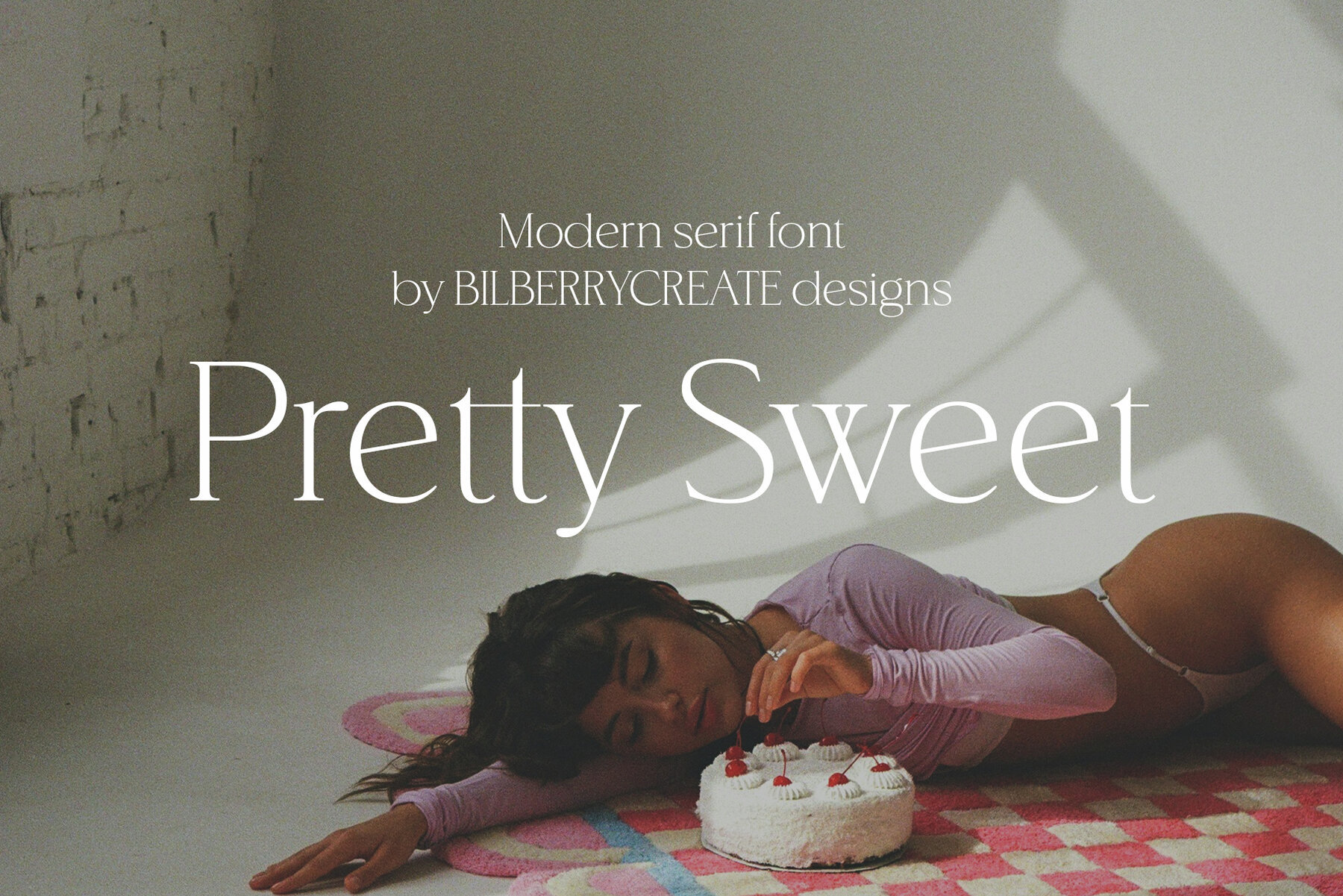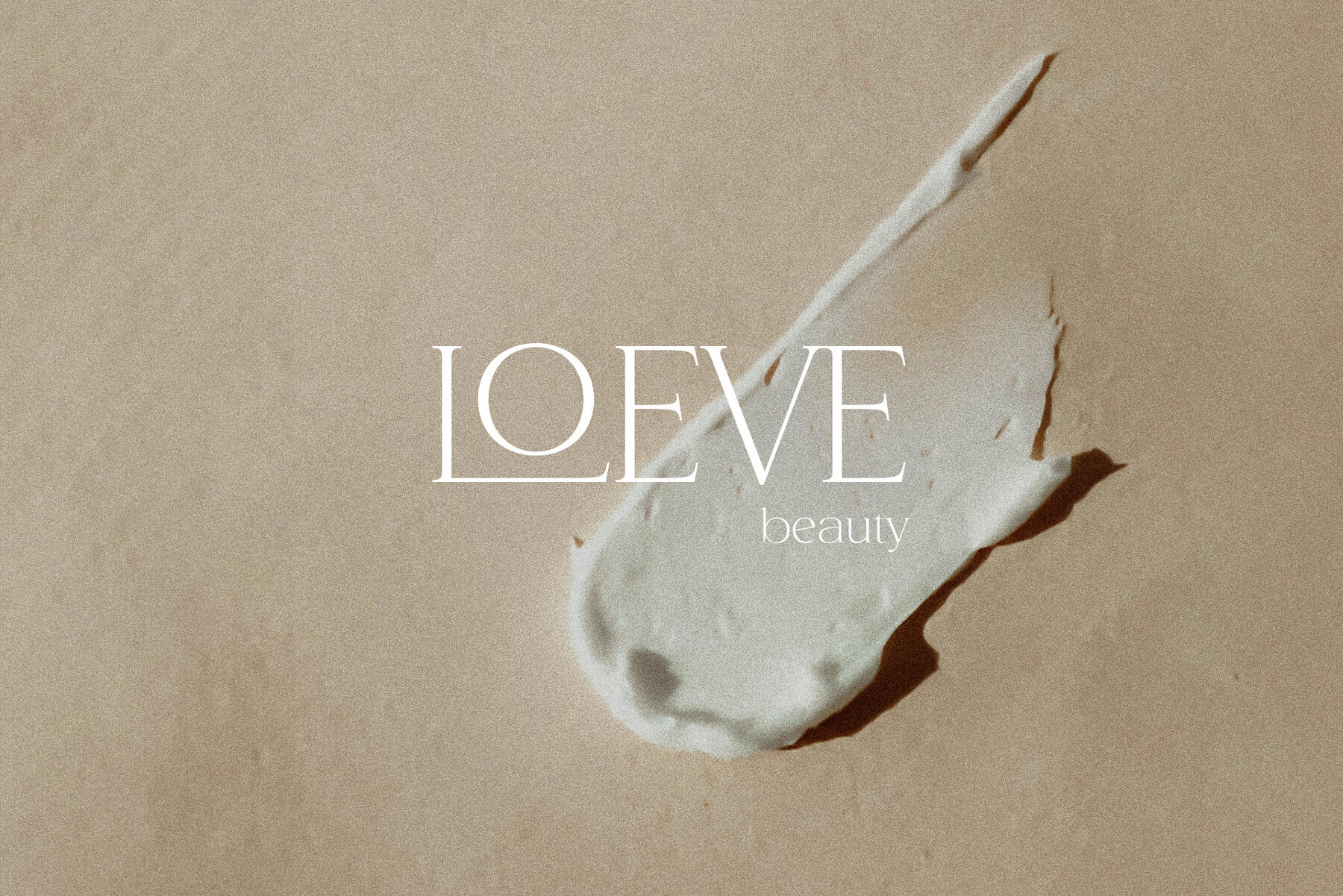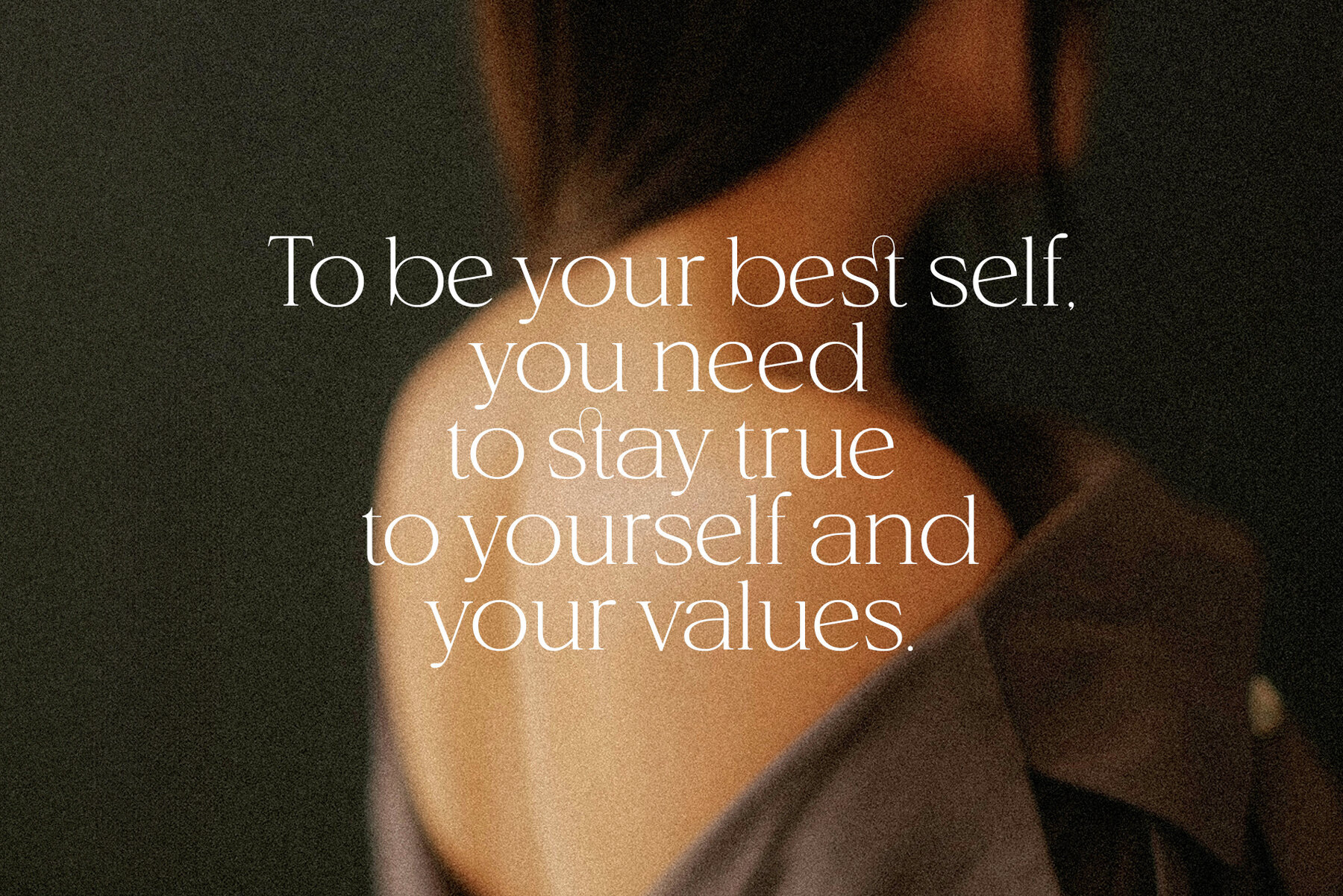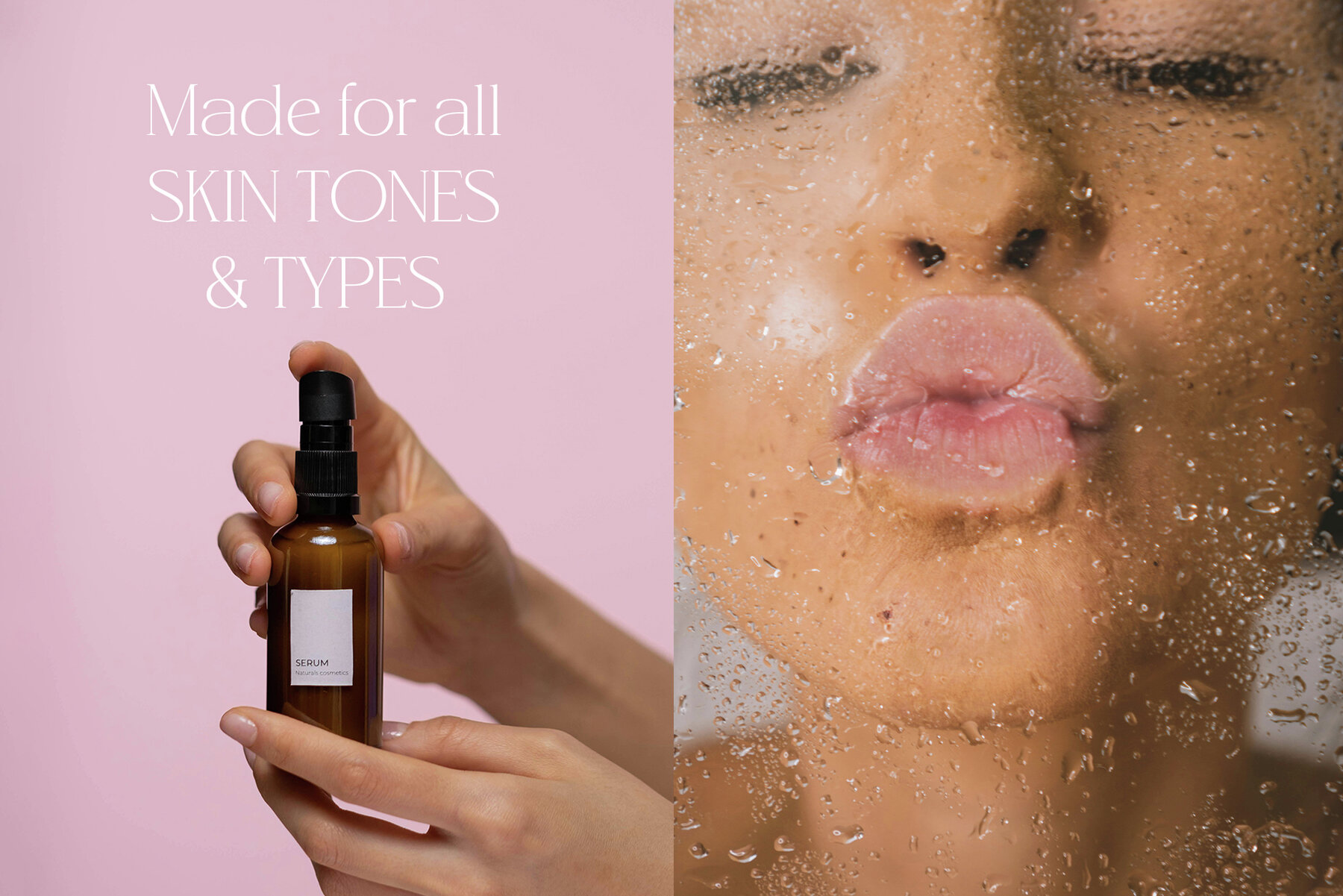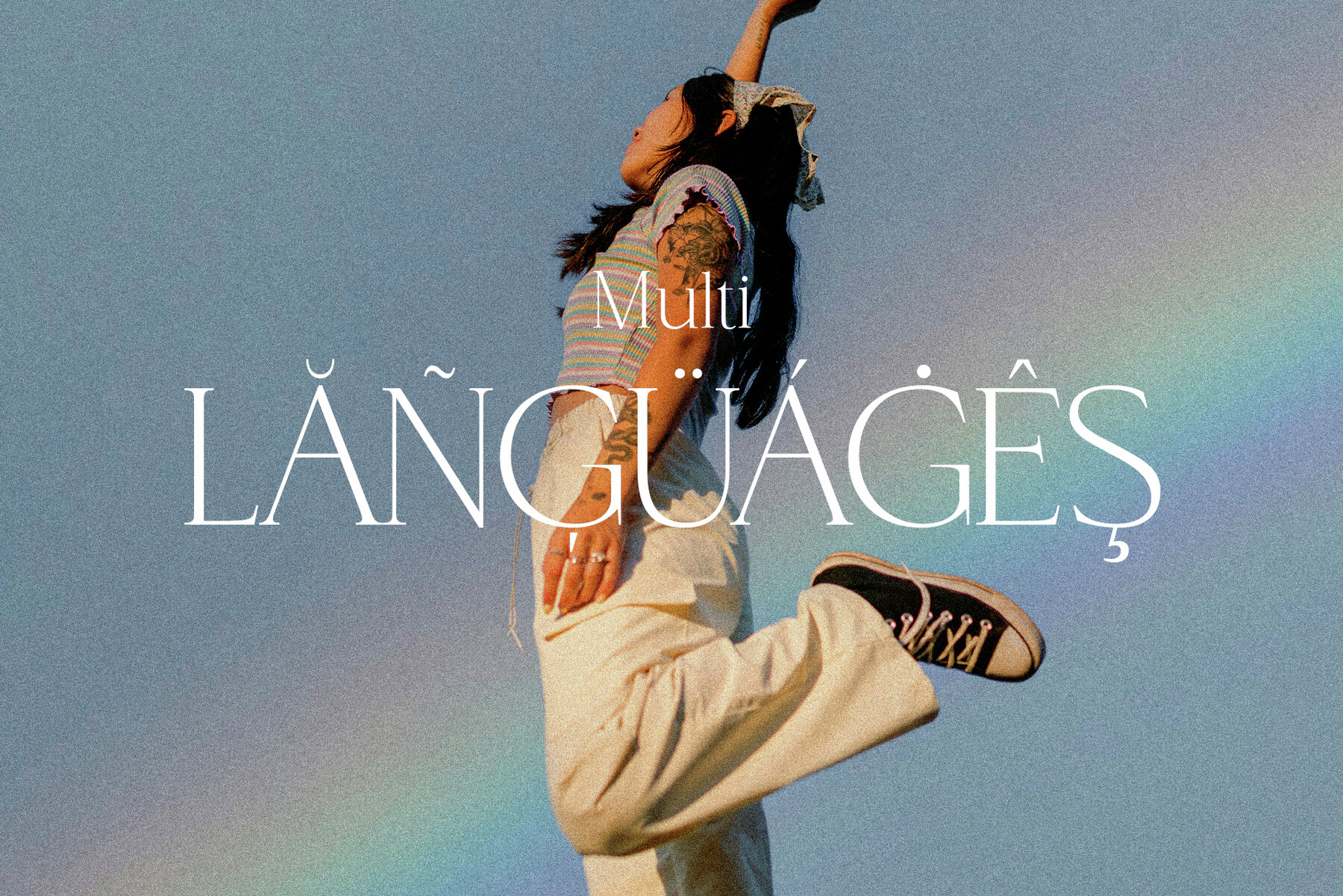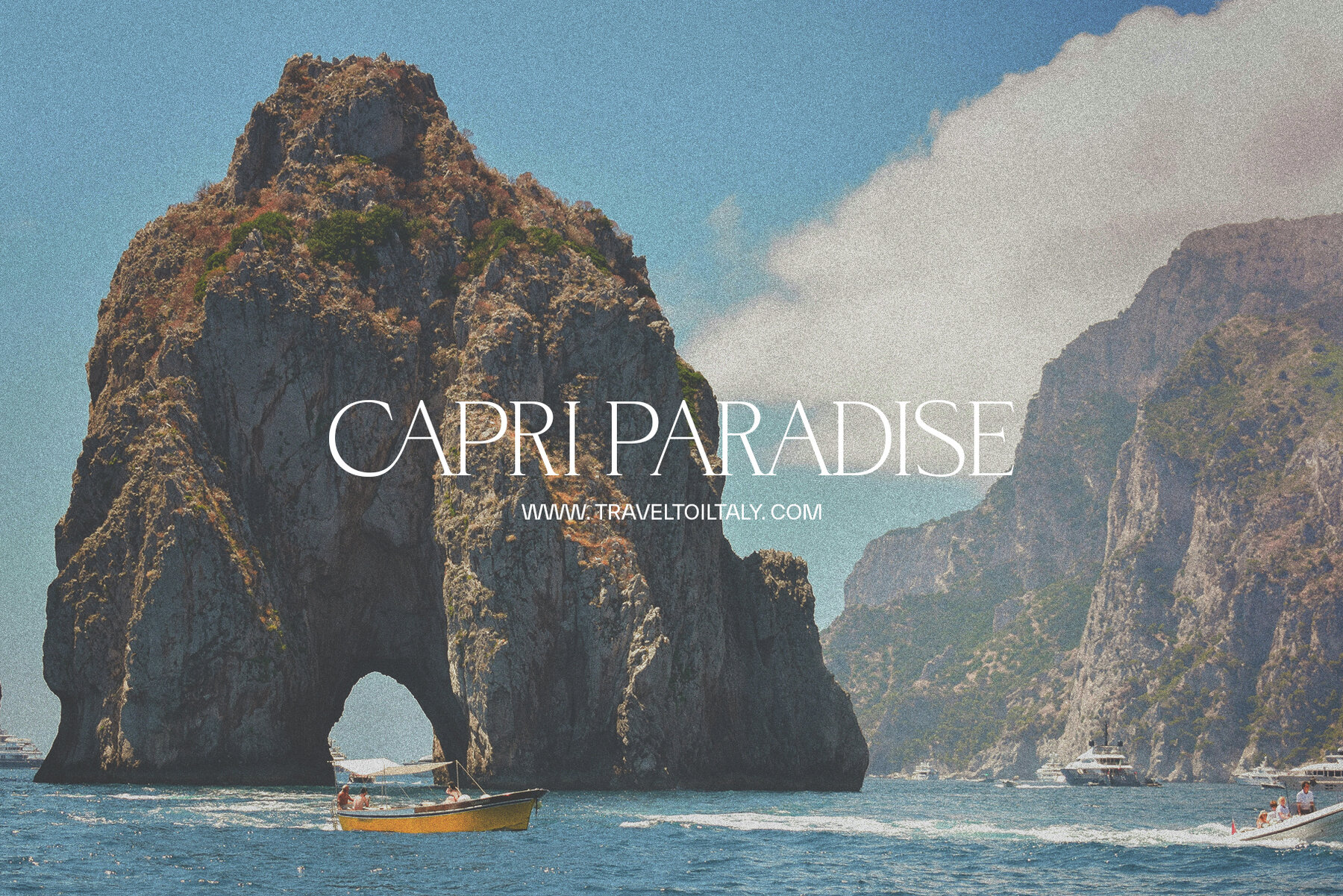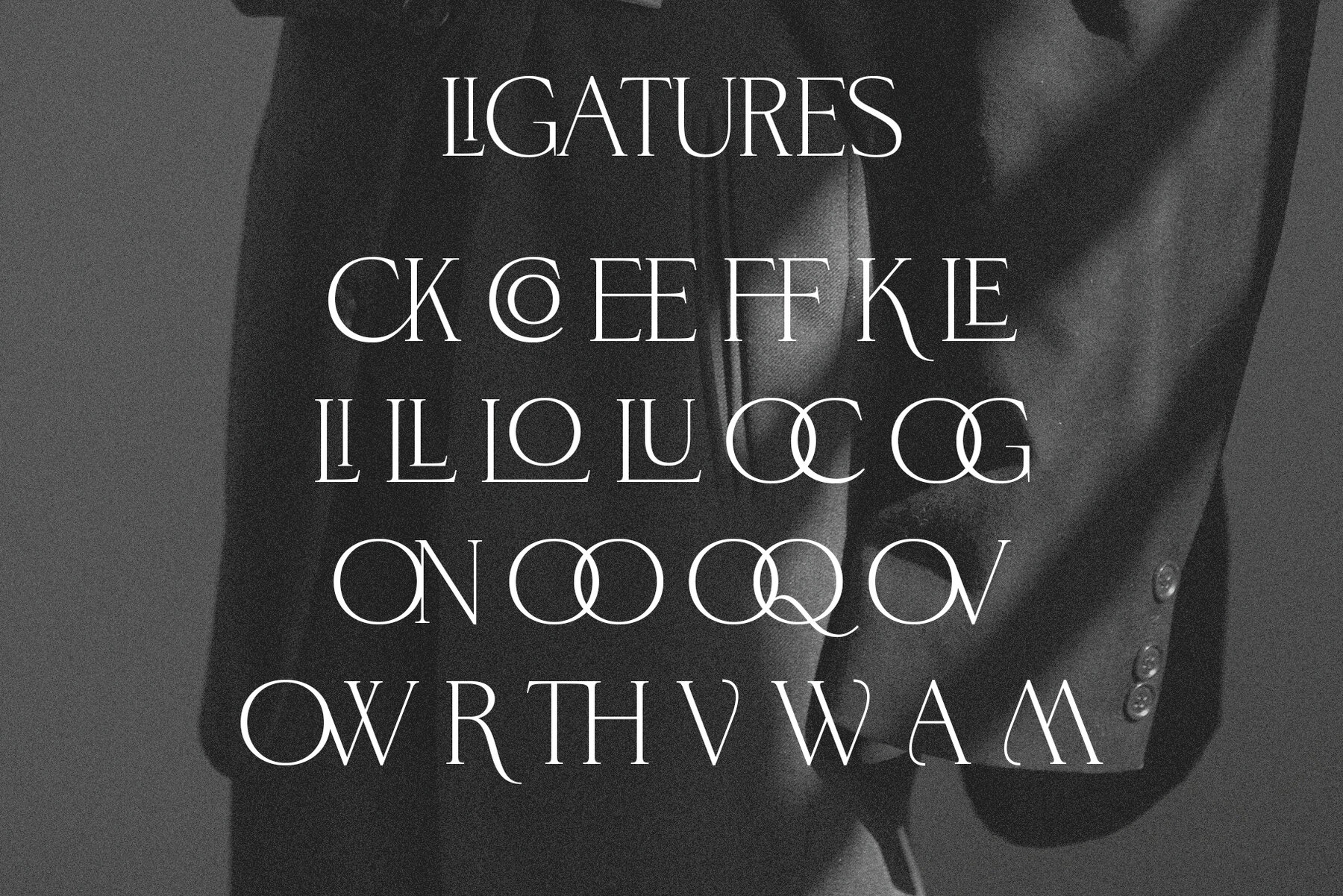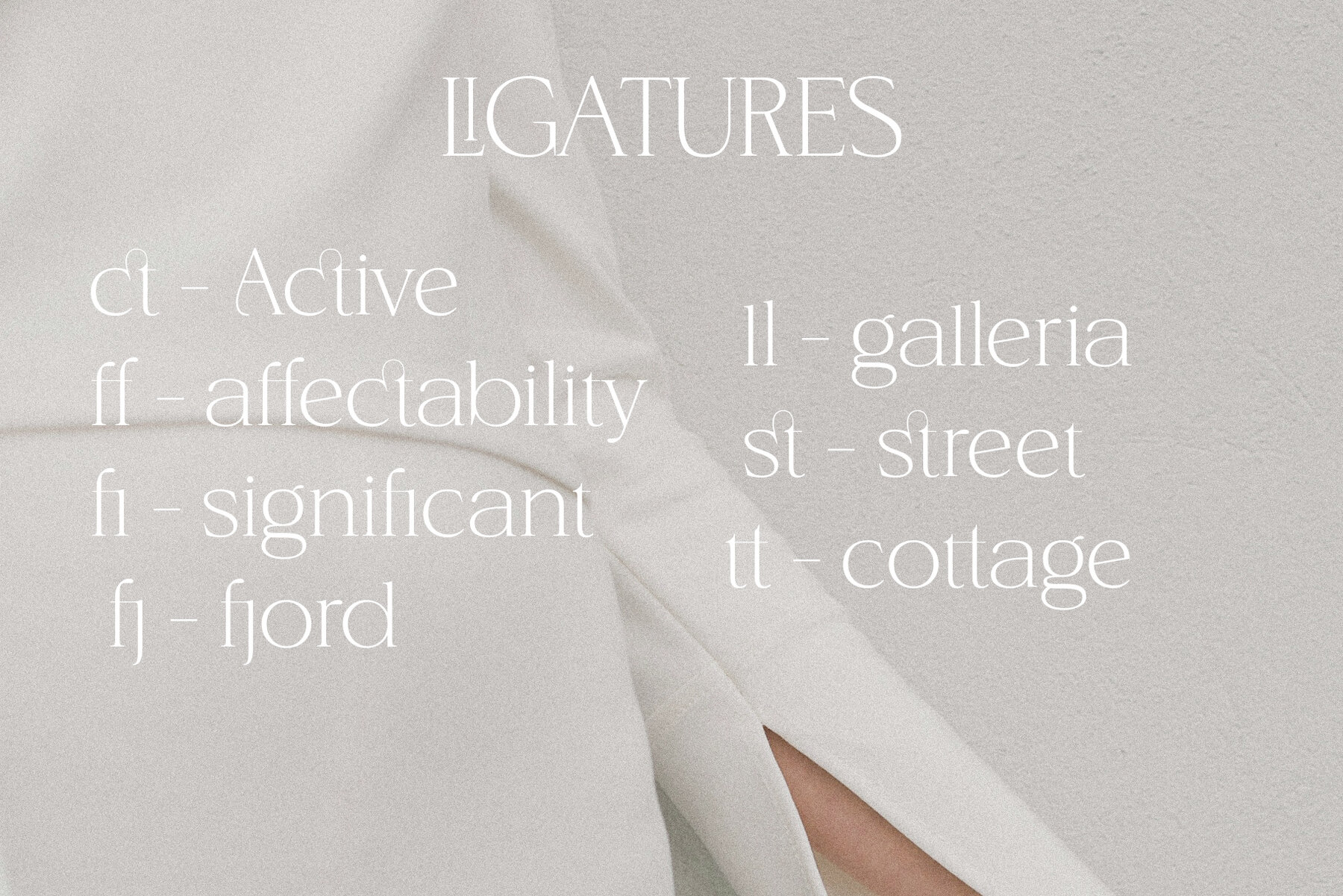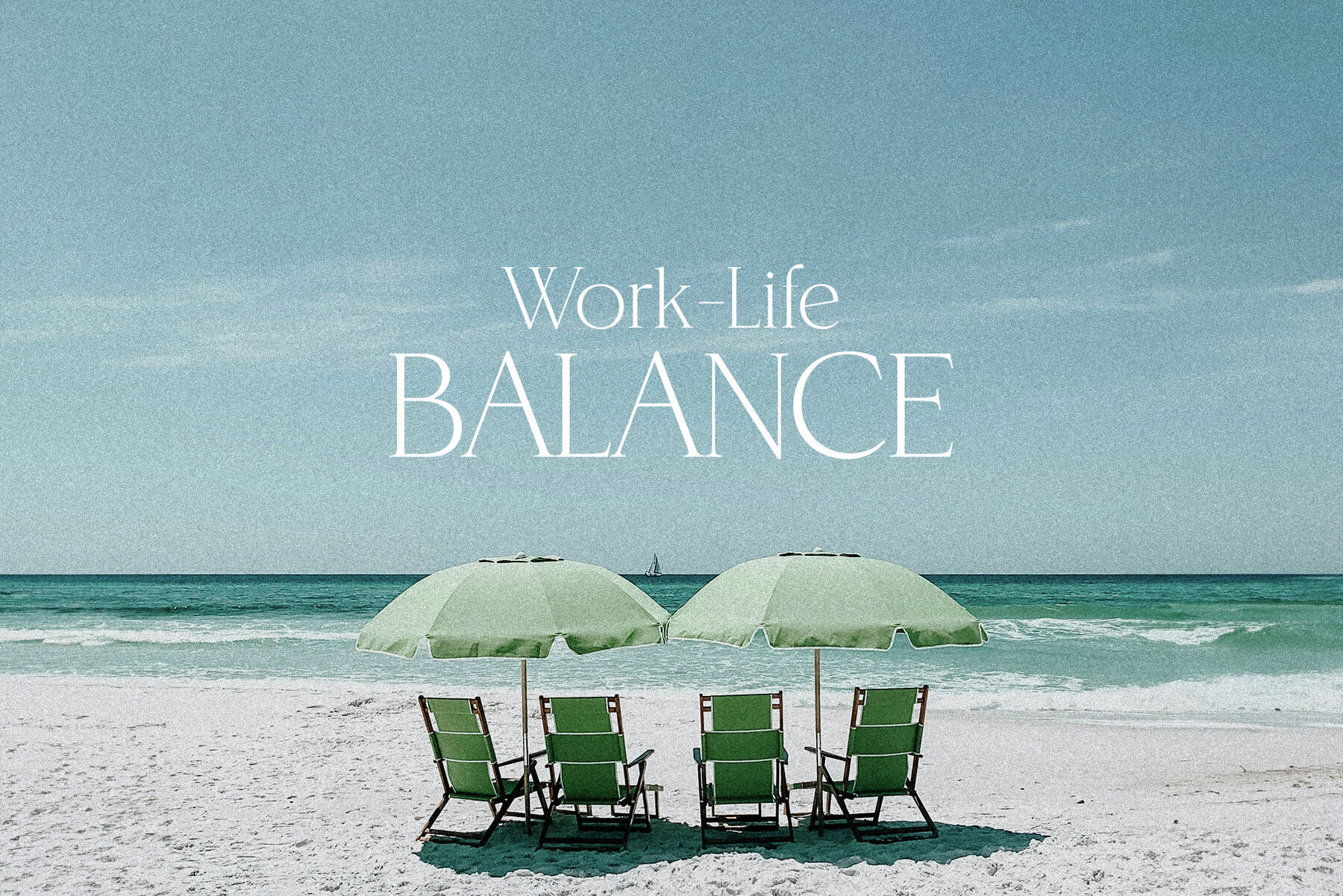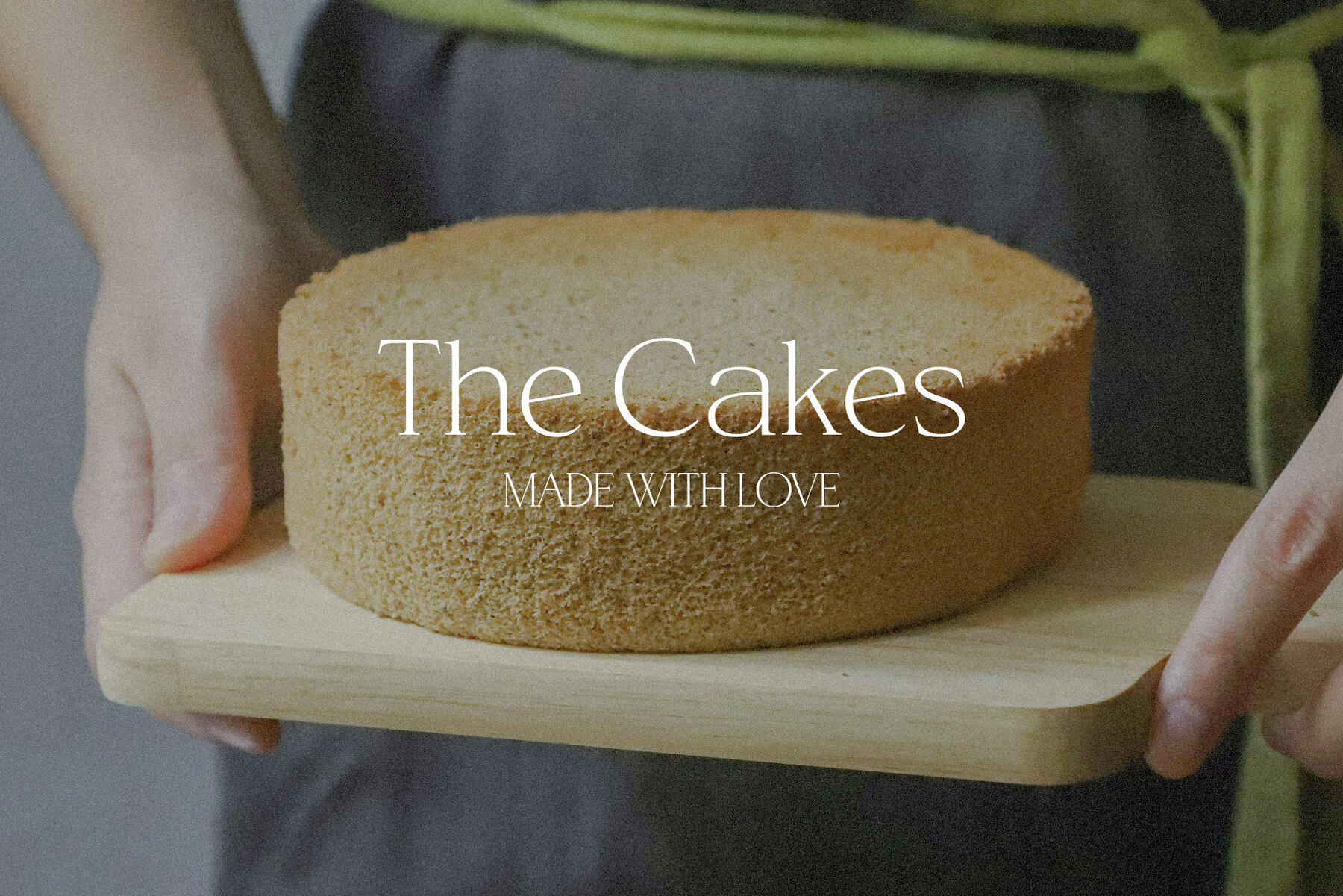
Pretty Sweet Font
Pretty Sweet Regular
Pretty Sweet by Bilberry Create Foundry is a modern serif font designed to enhance your creative projects. Its versatile and elegant design makes it a perfect fit for any endeavor. This font can be used in various applications, helping to transform your digital works into beautiful and unique pieces.Pretty Sweet: A Modern Serif Font for Stunning Designs
Unleash Your Creativity